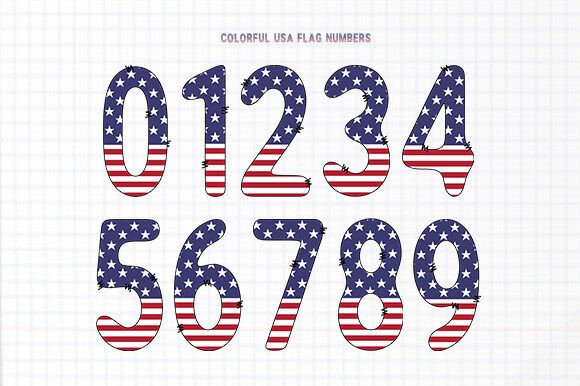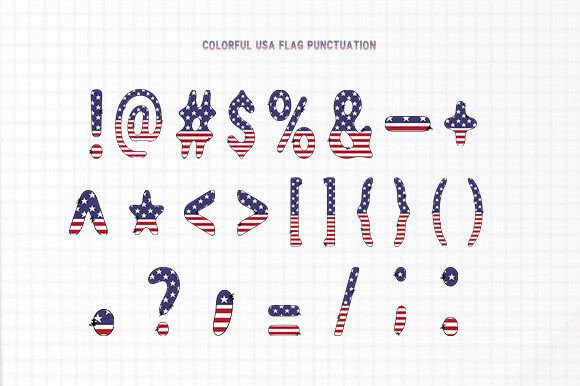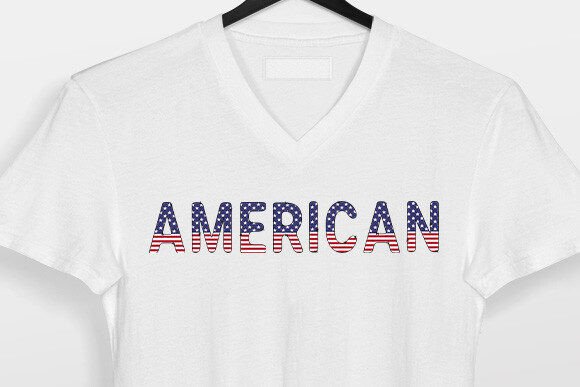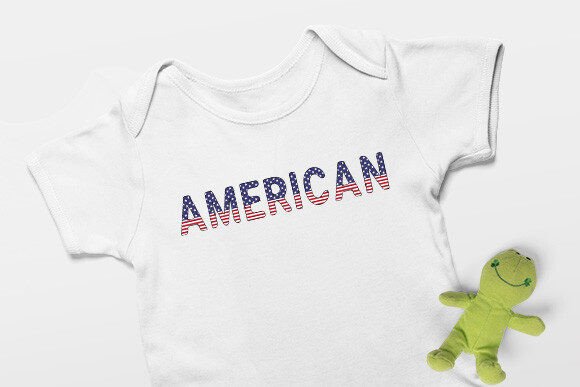
Unleash the Spirit of America with the Colorful Usa Flag Font
Remember the feeling of rummaging through your grandma’s attic, surrounded by vintage trinkets and patriotic memorabilia? That’s exactly the nostalgic vibe you’ll evoke with the Colorful Usa Flag Font. This charming duo is perfect for adding a touch of American flair to your designs, from 4th of July-themed apparel to product packaging that screams ‘All-American’.
As a designer, you know that the right font can make all the difference in conveying a brand’s personality and values. The Colorful Usa Flag Font is more than just a novelty – it’s a versatile tool that can be used to create eye-catching designs that evoke feelings of patriotism and nostalgia. With its compatibility with popular design programs like PhotoShop, Illustrator, and Silhouette, you’ll have endless possibilities to unleash your creativity.
Key Features of “Colorful Usa Flag Font”
- Font Type: Display Font, suitable for headings and titles
- Unique Characteristics: Unique color scheme and design inspired by the American flag, making it a great choice for patriotic designs and themes
Colorful Usa Flag Font Review
At first glance, the Colorful Usa Flag Font is a visually appealing and bold display font that’s perfect for adding a pop of patriotism to your designs. ✨ The use of bold lines, vibrant colors, and geometric shapes creates a striking visual effect that’s sure to grab attention. ✨ The font’s versatility also makes it suitable for a wide range of applications, from signage and advertising to digital and print media.
However, there are some limitations to consider. ⚠️ The font’s bold design can sometimes make it difficult to read, especially at smaller font sizes. ⚠️ Additionally, the use of bright colors may not be suitable for all designs or audiences, and may require additional design considerations to ensure the font doesn’t clash with the surrounding elements.
Overall, I think the Colorful Usa Flag Font is a great addition to any designer’s toolkit, but it’s not without its limitations. With careful use and consideration, this font can add a bold and eye-catching touch to your designs. But be sure to weigh the pros and cons before deciding whether this font is right for your project.
- Works well in bold, eye-catching designs
- Perfect for patriotic or American-themed projects
- Can be used in a variety of applications, including signage, advertising, and digital media
The Colorful USA Flag Font is ideal for patriotic designs, such as:
- Independence Day celebrations
- 4th of July party invitations
- USA-themed merchandise
Remember to use the font in a way that respects the American flag’s symbolism and meaning.